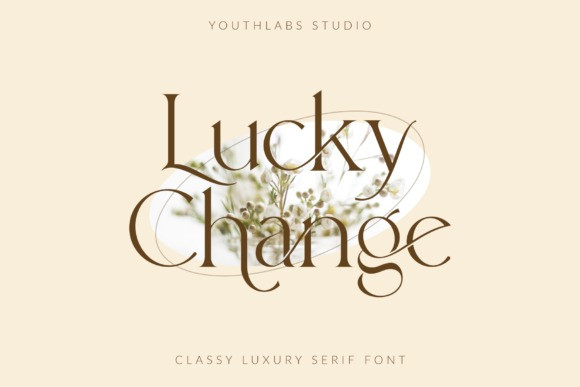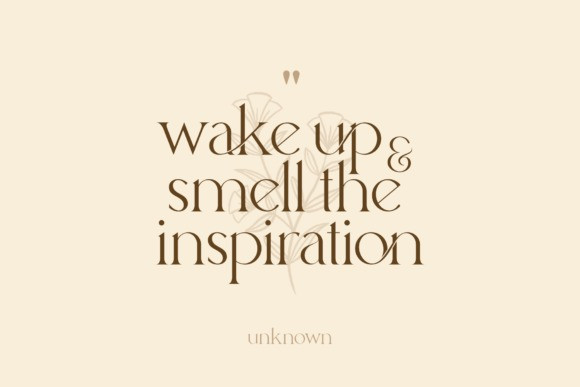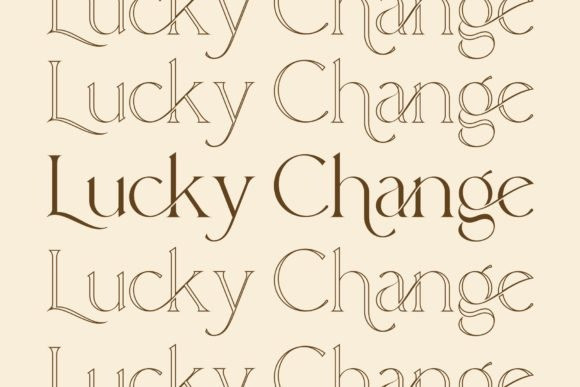
Lucky Change Font
Lucky Change is a thin lettered and delicate serif font. It will add a luxury spark to any design project that you wish to create! This font is PUA encoded which means you can access all of the amazing glyphs and ligatures with ease!